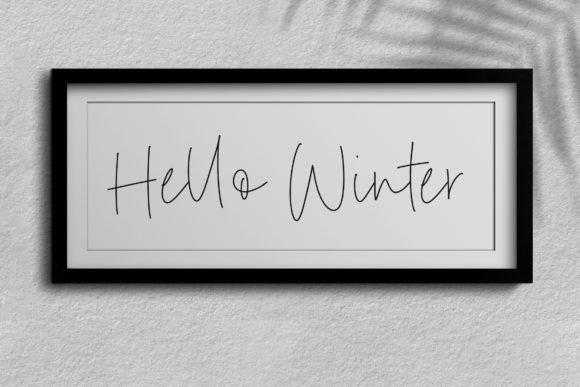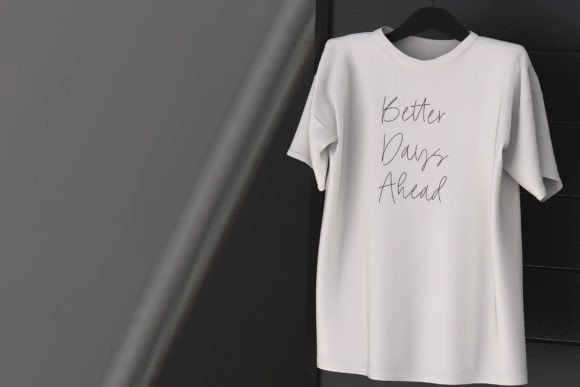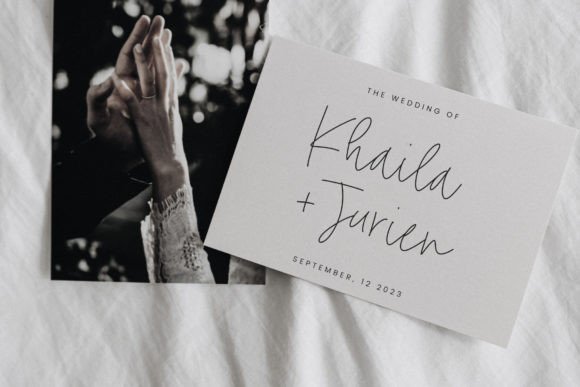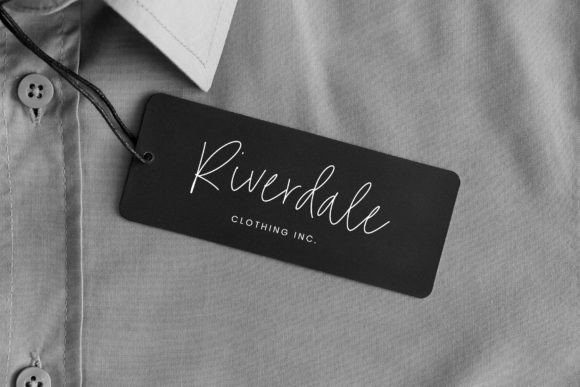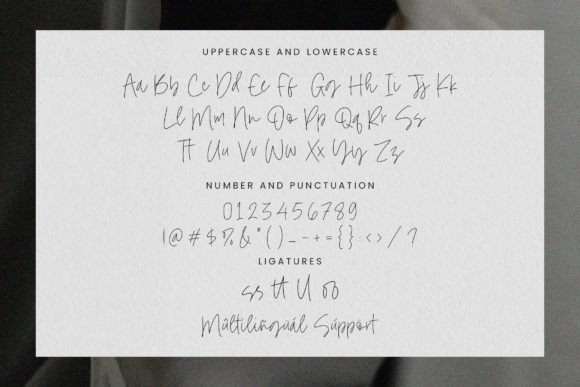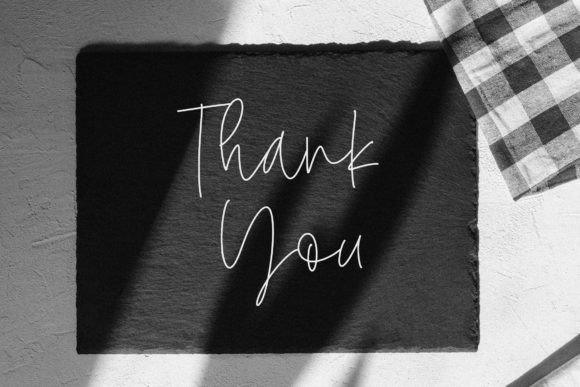
Introduction to Simone Kimber Font
SImone Kimber is a delicate, elegant and flowing handwritten font.
It has beautiful and well balanced characters and as a result, it matches a wide pool of designs Add it to your most creative ideas and notice how it makes them come alive.
Key Features of Simone Kimber Font